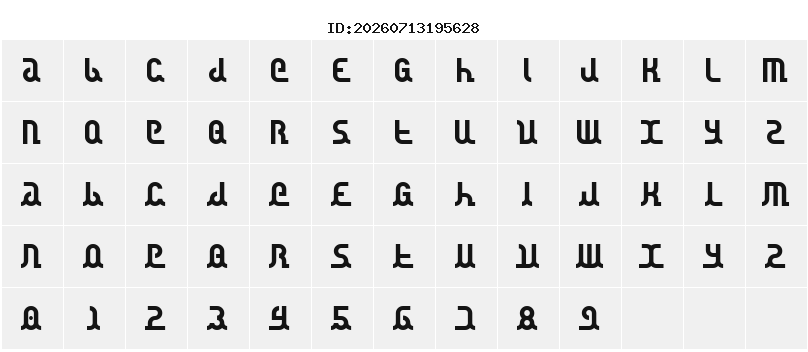
• Font Name: canstop
• Full Font Name: canstop
About canstop.ttf
canstop.ttf is a modern, elegant sans-serif font designed for ultimate readability and visual harmony. Perfect for branding, headlines, web design, and print materials.